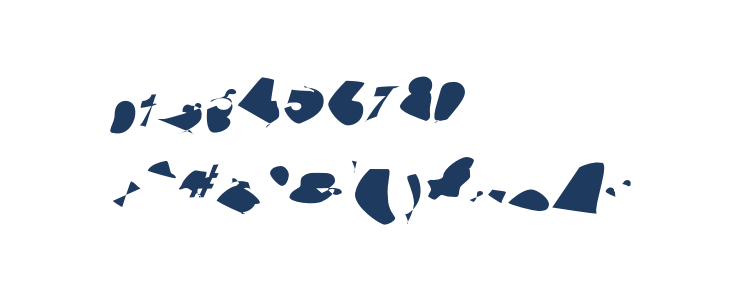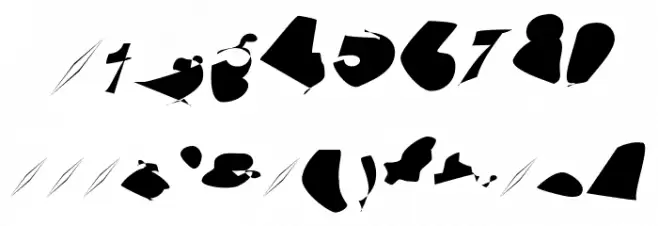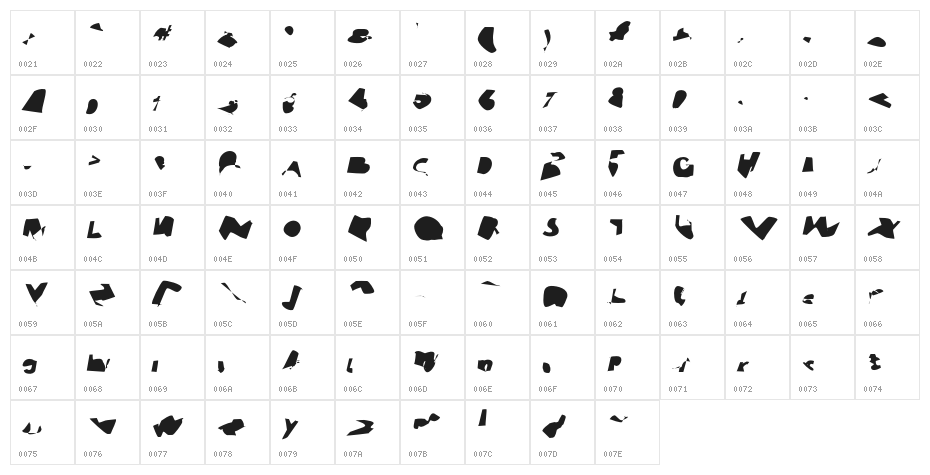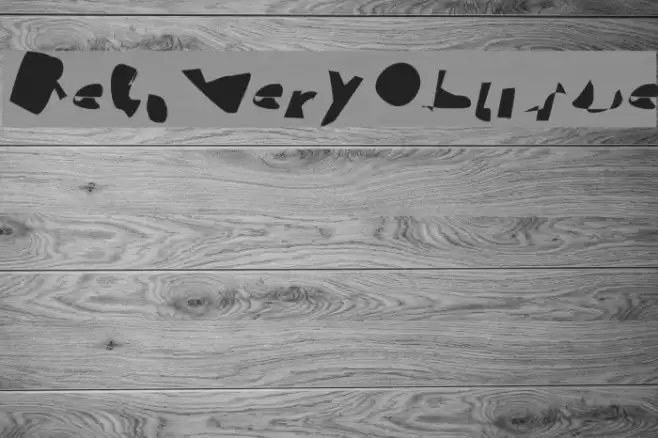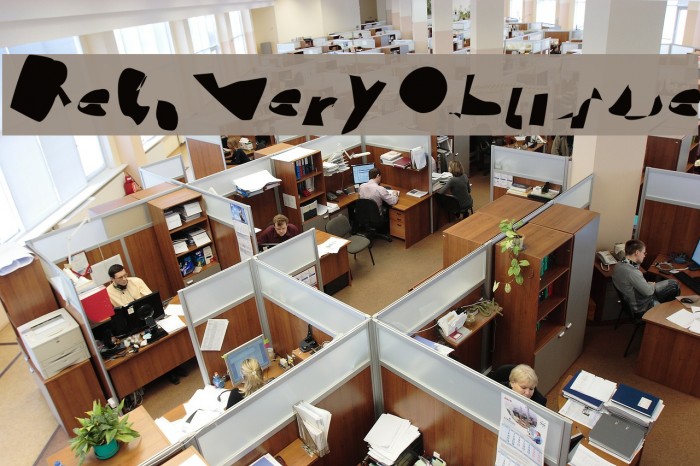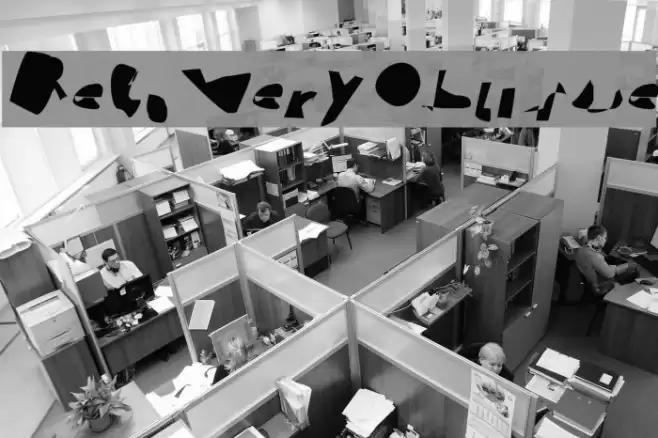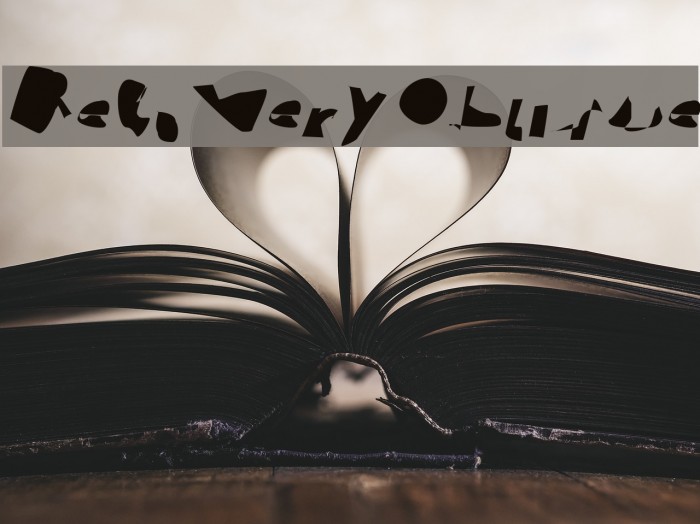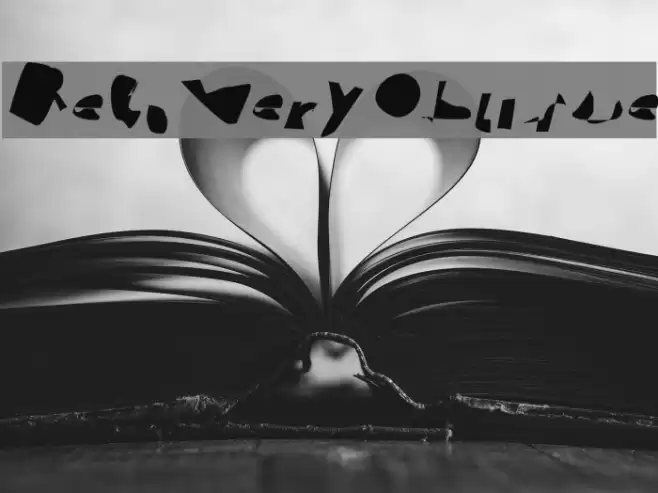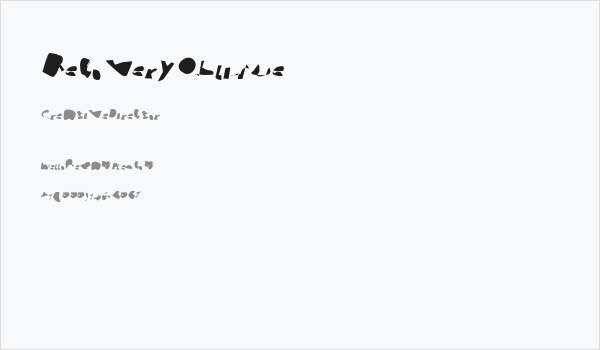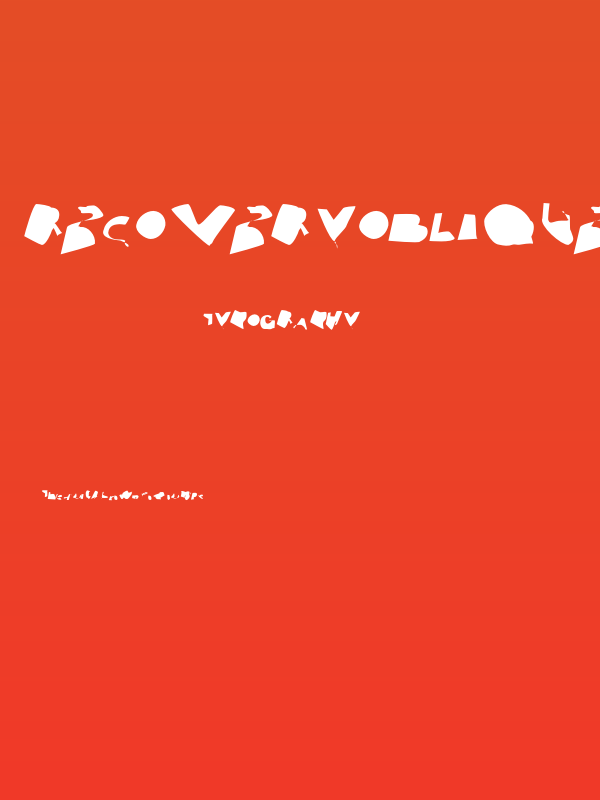
Recovery Oblique Font
Recovery Oblique Description
This font features a highly abstract and fragmented design, with each character appearing as if it has been shattered or distorted. The letters are bold and irregular, with sharp angles and unexpected curves that create a sense of dynamic movement. The overall appearance is chaotic yet artistic, making it a standout choice for projects that require a unique and edgy aesthetic. The font's unconventional style may challenge readability at smaller sizes but excels in creating a strong visual impact.
| Overall Style | Modern, Abstract |
| Proposed Projects | Ideal for avant-garde posters, album covers, or branding that seeks to convey a sense of disruption or innovation. |